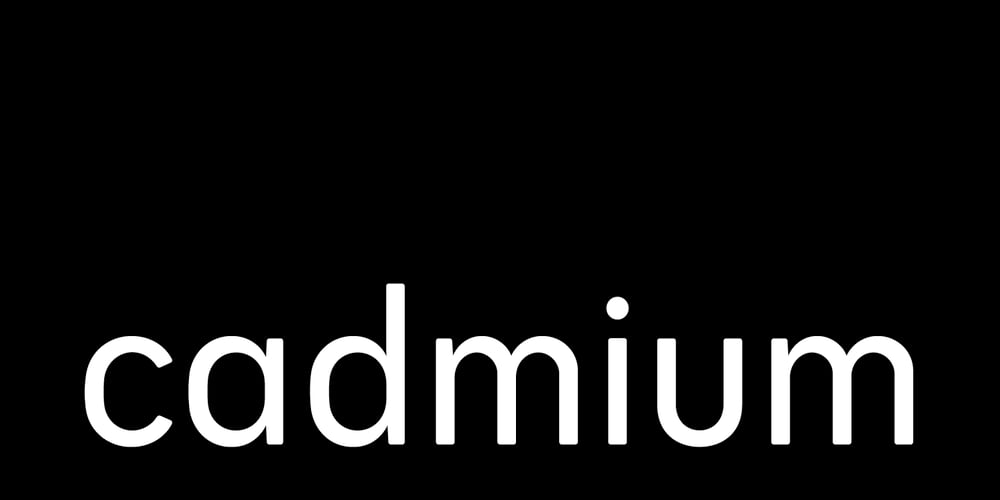
Cadmium
Cadmium font
Cadmium Font Family was designed by Nicholas Garner and published by AVP. Cadmium contains 48 styles and family package options. Cadmium has a comprehensive latin character set and many Opentype features to enhance text, including small capitals, case-sensitive forms, superscript and subscript. Plenty of numeral variants include old-style figures, lining figures and fractions. Default numerals are proportionally spaced. Alternative styles for a handful of key characters provide some useful variations where stylistic sets can be implemented.The fonts are presented as four width-based sub-families: Expanded, Normal, Condensed and Compressed. Each width has a matching range of six weights and italics (obliques). Regular and Bold weights are style-linked, together with their respective oblique forms. Each width differs in its basic construction but all fonts share the same vertical metrics and may be used in combination with each other. Letter spacing is optimised for text sizes but is tolerant of significant tracking changes.Cadmium is good for signage, publicity and packaging, screen credits and titling, general print and publication, as well as web and screen applications.